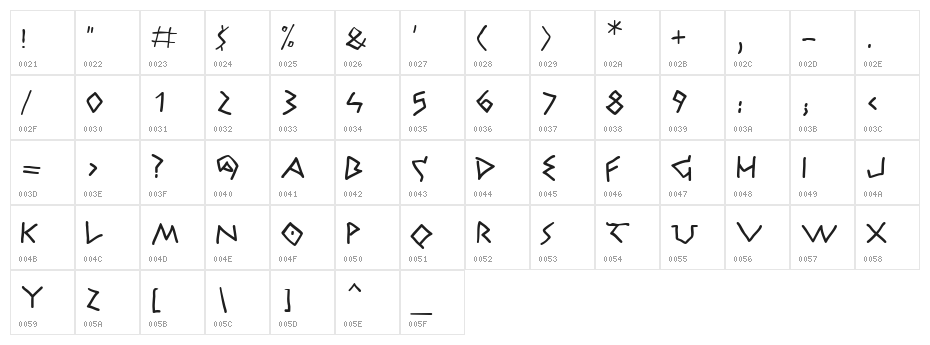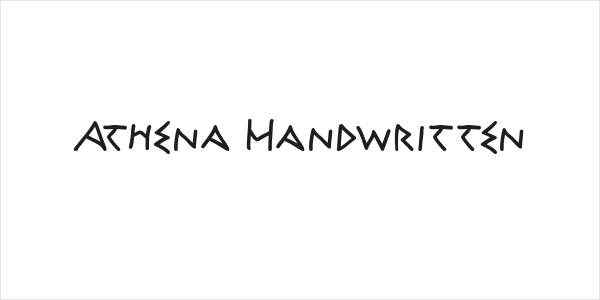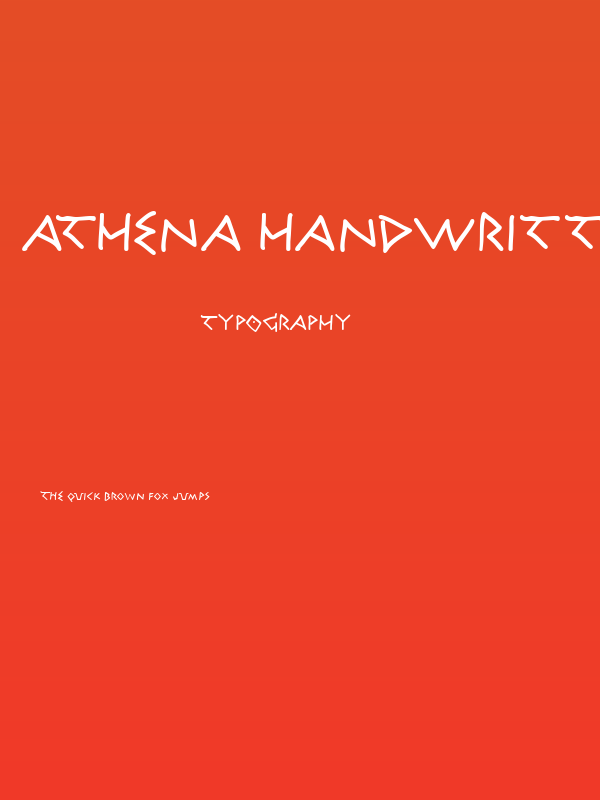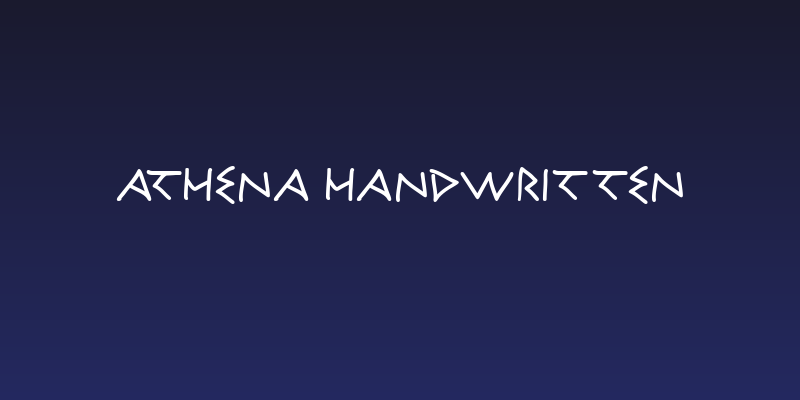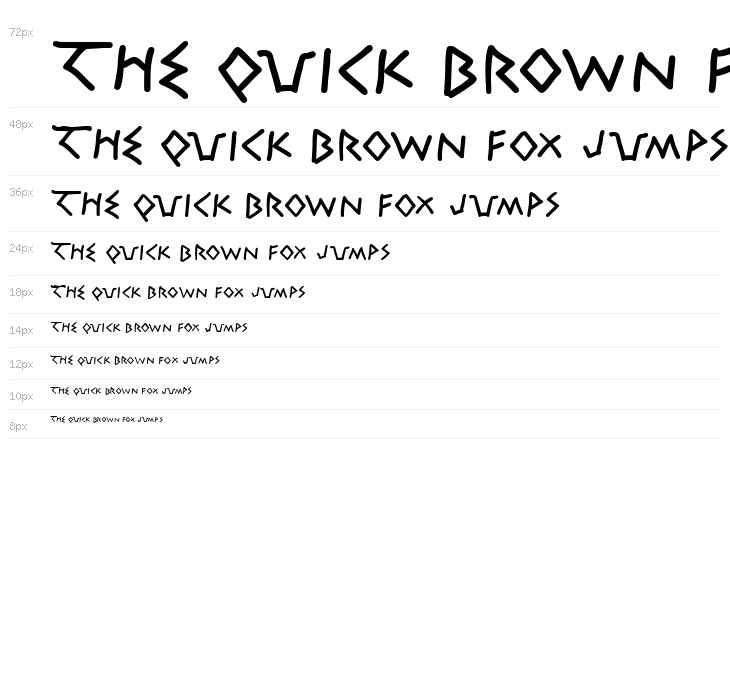
Athena Handwritten Font
Athena Handwritten Description
This font exudes a playful and artistic vibe, characterized by its handwritten style that mimics the fluidity and spontaneity of natural handwriting. The letters are slightly irregular, giving it a personal and informal touch. Each character is distinct, with unique curves and angles that suggest a casual yet deliberate design. The uppercase and lowercase letters maintain a consistent style, while the numbers and special characters blend seamlessly into the overall aesthetic. This font is perfect for projects that require a personal, approachable feel, such as invitations, greeting cards, or creative branding.
| Overall Style | Casual, Artistic |
| Use Case | Headlines, Creative projects, Personal branding |
| Proposed Projects | Ideal for invitations, greeting cards, creative branding, and personal projects. |